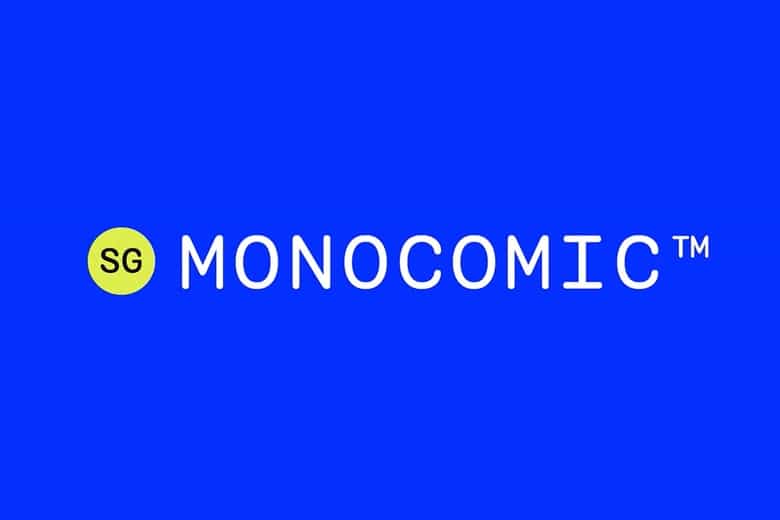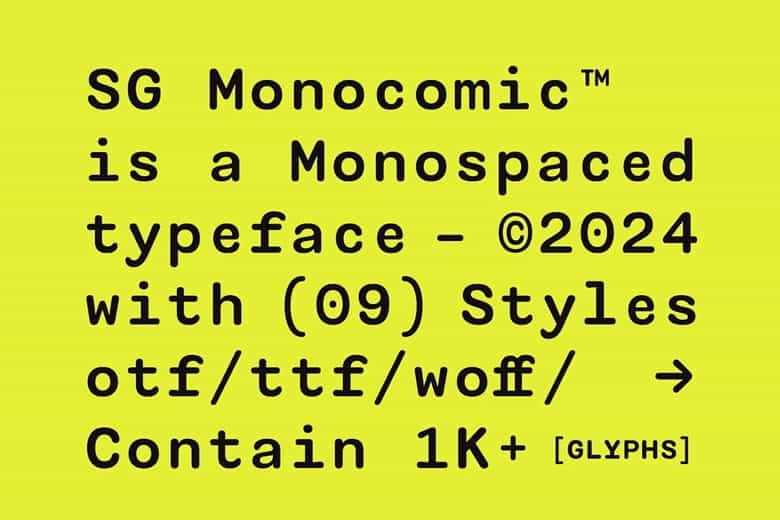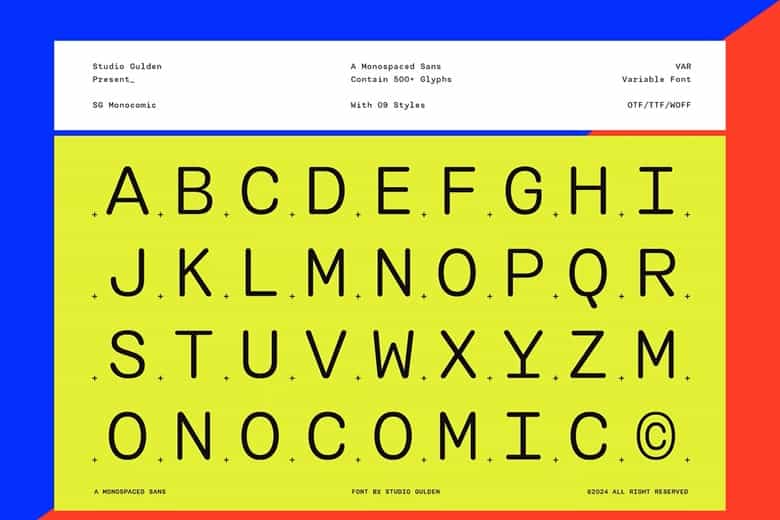
Explore the SG Monocomic family, a brand new monospaced font with many features and character. Because it has nine weights, from fine and light to robust and hugely impactful, you can use SG Monocomic for almost any purpose. Because of its exact precision and monospacing, it is very useful for programmers, people working with tables and anyone who wants to be sure everything is aligned. The gentle, fashionable curves on the letters keep typefaces easy to read, even at tiny sizes.